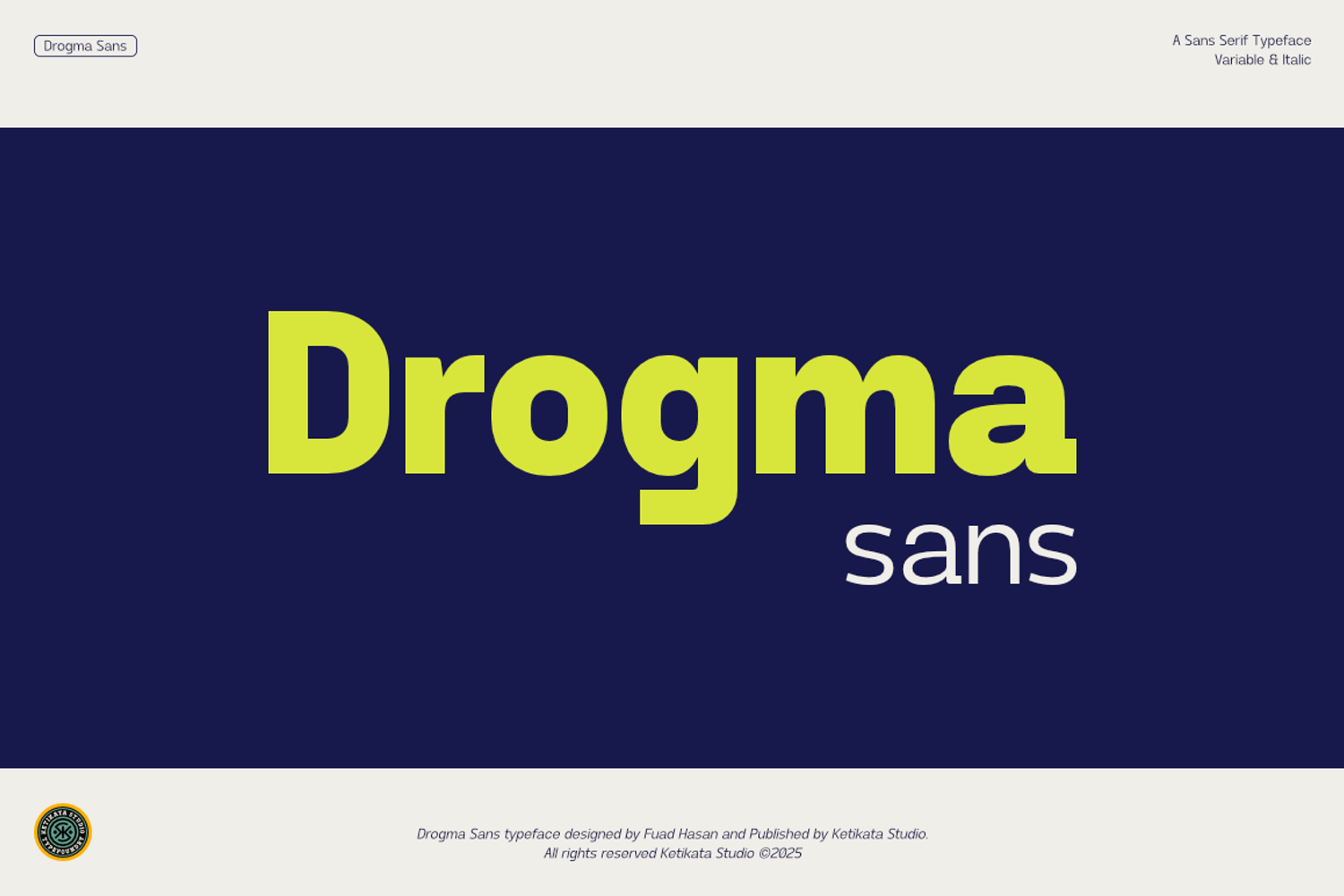
Drogma Sans Variable Typeface
Meet Drogma Sans, variable sans serif typeface that's been crafted with the energy and dynamic spirit of modern graphics.
Imagine the thrill of a baseball game, the rush of a basketball dunk, or the excitement of a football match—all captured in each bold stroke of Drogma Sans.
Key Features:
• Bold and Strong: Drogma Sans, commands attention with its thick, powerful lines.
• Youthful and Dynamic: Imagine the spirit of a spirited crowd cheering their favorite team, translated into each vibrant Dynamic and Standout.
• Versatile Applications: Ideal for apparel design, logos, covers, posters, packaging, and event headlines.
• Explore Creative Features: Packed with ligatures, alternates, and multilingual support to elevate your designs.
Drogma Sans brings a sense of enthusiasm and retro charm to every project, making it a must have for any designer's toolkit.
Unleash the power of Drogma Sans and make your designs stand out like never before! Get ready to make a bold statement with Drogma Sans! 🌟